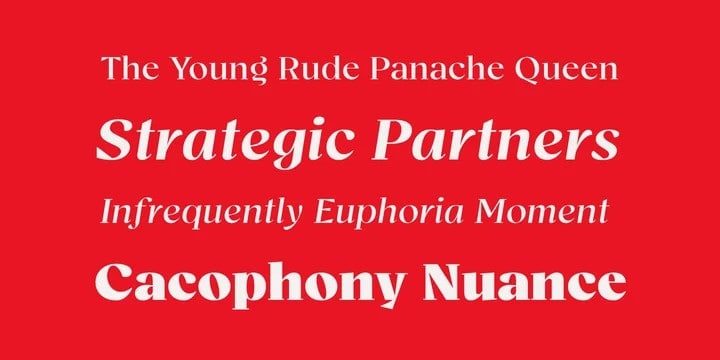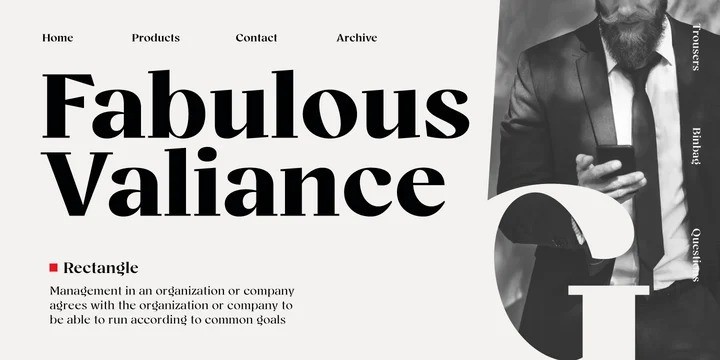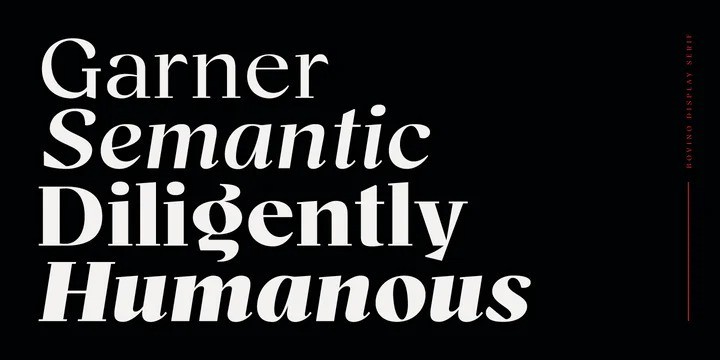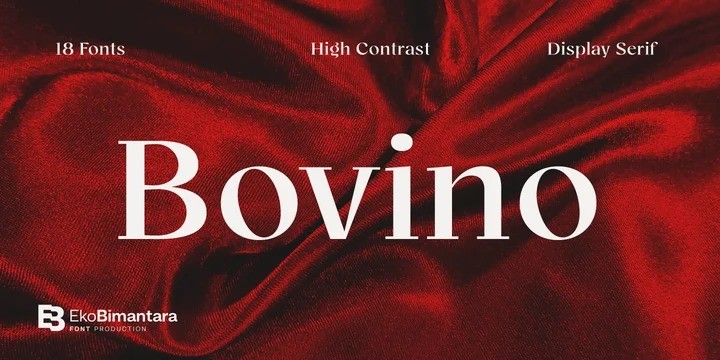
Bovino Trial Serif Font Family
Bovino Trial Serif Font is an elegant serif font that offers a wide range of possibilities. The typeface was built by fusing geometry and optical balance together. It is a display serif font from the designer Eko Bimantara. It was formed in a strong and sharp characters. The moderate x height and high contrast strokes make it attractive for titles and large size usage. Bovino Trial Serif Font contain more than 400 glyphs which covered broad latin languages, its consist of 9 styles from thin to black with each matching italics.